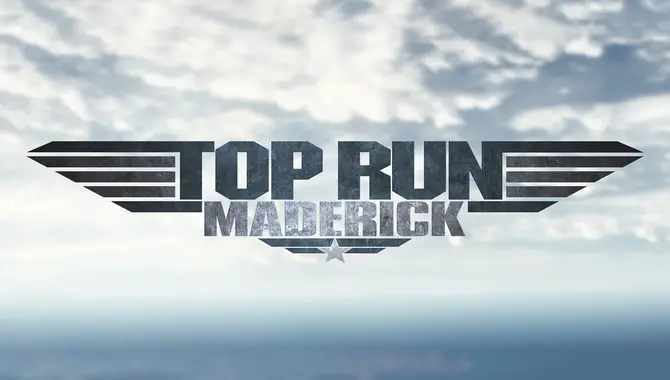
The Art Of Typography In Top Gun Maverick Logo Font: A Study
Typography is an essential element of graphic design that often goes unnoticed yet plays a significant role in conveying messages and creating aesthetic appeal. When it comes to iconic movie logos, typography becomes even more crucial in capturing the essence and personality of the film.
One such movie logo that has captured the imagination of audiences for over three decades is Top Gun. The upcoming sequel Top Gun Maverick is set to release this year. And with it comes a new logo font that has sparked interest among fans and designers alike.
This blog post titled “The Art of Typography in Top Gun Maverick Logo Font: A Study” delves into the intricacies of the new logo font and explores how it lives up to the legacy of its predecessor.
Top Gun Maverick Logo Font
Typography is an essential element of graphic design that often goes unnoticed yet plays a significant role in conveying messages and creating aesthetic appeal. When it comes to iconic movie logos, typography becomes even more crucial in capturing the essence and personality of the film.
One such movie logo that has captured the imagination of audiences for over three decades is the Gun Maverick logo font. By following these tips, you can effectively leverage the Top Gun Maverick logo font to create eye-catching designs that capture the spirit of the iconic movie.
• When using the Gun Maverick logo font, there are a few tips to remember to ensure its effective use.
• Maintain its bold and powerful appearance by using it at a larger size.
• Consider pairing it with complementary fonts to create a balanced and cohesive design.
• Pay attention to spacing and alignment. The logo font has distinctive letterforms, so make sure to give each character enough breathing space and align them properly to maintain legibility and visual appeal.
Understanding The Gun Maverick Logo Font
The Gun Maverick logo font is an iconic and recognizable typeface representing the upcoming movie “Top Gun: Maverick.” The font used in the logo is a modified version of the Futura Bold font, which has been customized to give it a distinct and bold appearance.
The letters are sleek, angled, and slightly extended, conveying a sense of speed, power, and adventure. The font choice for the Top Gun Maverick logo reflects the high-energy and adrenaline-fueled nature of the film, capturing the essence of the original Top Gun while adding a modern touch.
It serves as a visual representation of the movie’s daring and thrilling atmosphere, instantly evoking excitement and nostalgia among fans.
Another successful brand is Nike, known for its simple and bold typography. Using a clean, sans-serif font has helped establish Nike as a symbol of athleticism and performance. Additionally, tech giant Apple has achieved remarkable success with its minimalist and sleek font choices.
When using the Gun Maverick logo font, there are several legal considerations to remember. Firstly, it’s important to understand that the Gun Maverick logo font is a trademarked asset owned by the respective copyright holder. Therefore, any unauthorized use or reproduction of the font may infringe upon intellectual property rights and result in legal consequences.
To legally use the font, obtaining proper licensing or permission from the copyright holder is advisable, which may involve contacting the relevant rights holders or licensing agencies. Additionally, adhering to any usage guidelines or restrictions the copyright owner provides is crucial to ensure compliance.
4.Can I Use The Gun Maverick Logo Font In My Company’s Logo?
Ans: Using the font in a company logo may require licensing or permission, as it typically falls under commercial use. Consult the copyright holder or licensing agency for guidance.